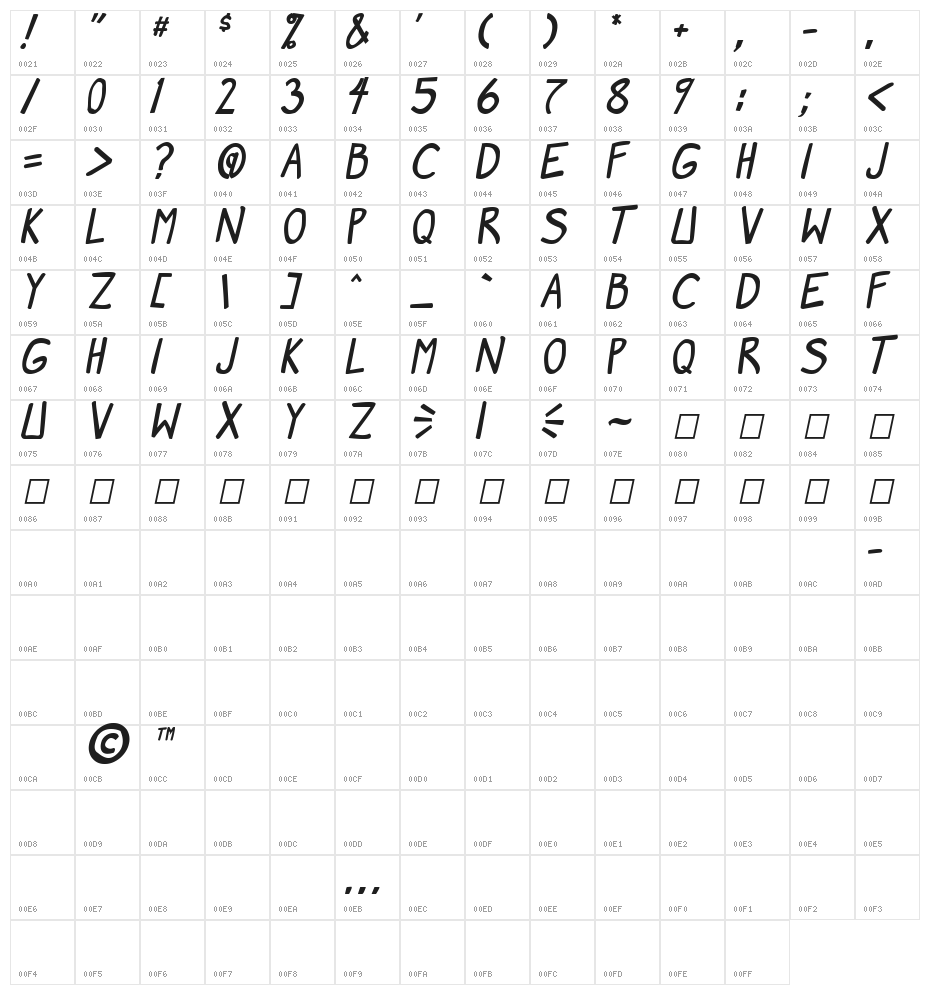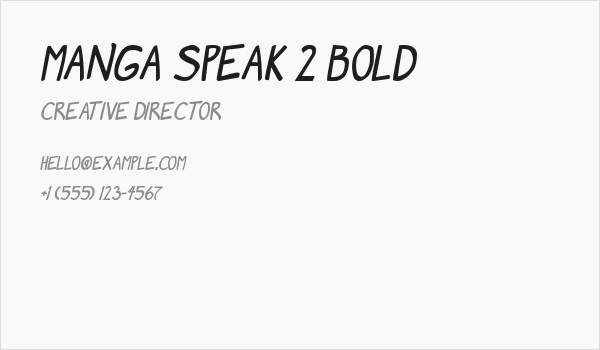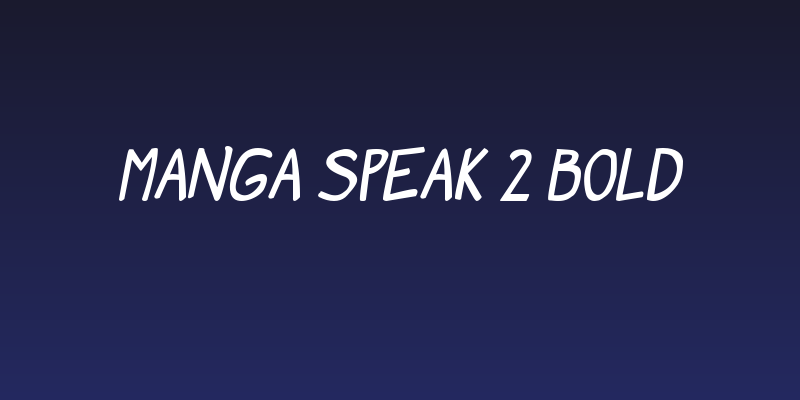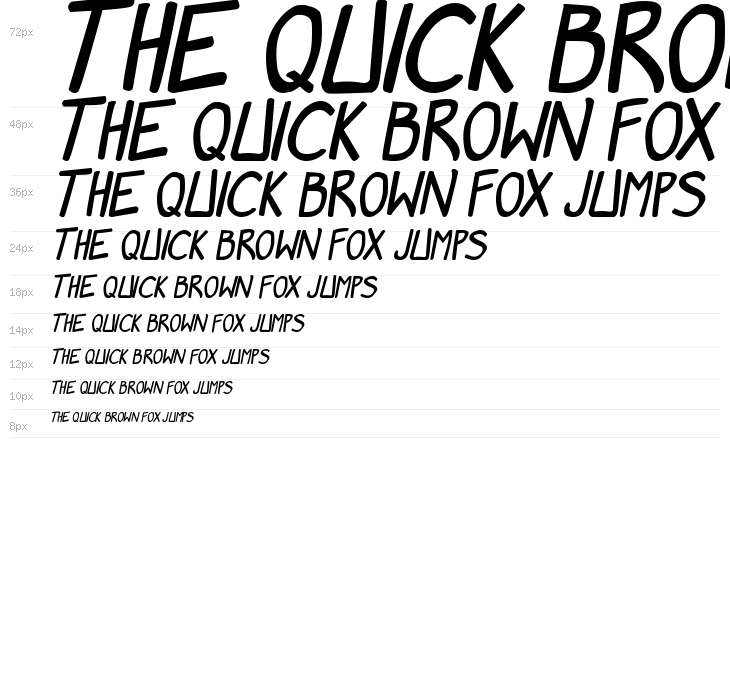
Manga speak 2 Bold Font
Manga speak 2 Bold Description
This font features a playful and energetic style, characterized by its bold and slightly slanted letterforms. The strokes are smooth and consistent, giving it a handwritten appearance that is both casual and dynamic. The uppercase and lowercase letters maintain a uniform height, enhancing readability while adding a touch of whimsy. The numerals and special characters are designed with the same lively flair, making them stand out in any design. This font is ideal for projects that require a fun and informal tone, such as comic books, children's books, or playful branding materials.
| Proposed Projects | Comic books, children's books, playful branding, informal posters, and social media graphics. |